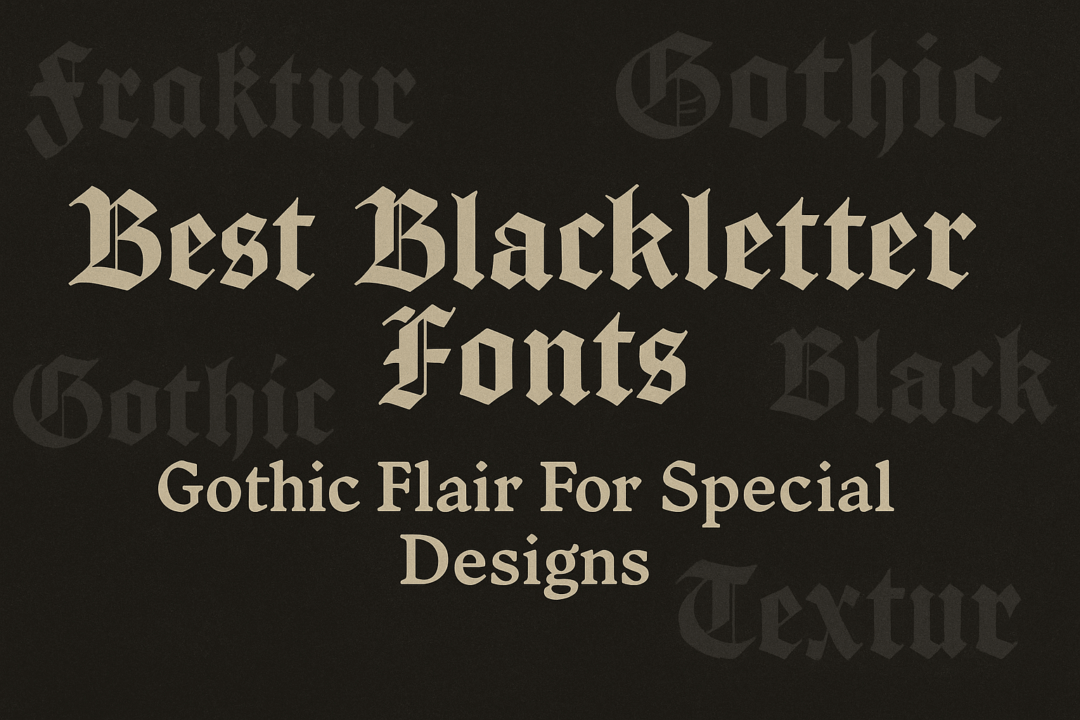
11 Best Blackletter Fonts To Make Your Designs Look Dramatic
Best Blackletter Fonts To Make Your Designs Look Dramatic By Din The influence of modern medieval and rebellion results in the gloomy, cool, dramatic blackletter looking. we have collected blackletter font for your design tools in the following explanations. Discover 25 powerful blackletter fonts perfect for gothic, medieval, and fantasy projects. from victorian elegance to tattoo inspired scripts, find your next bold typeface here.
11 Best Blackletter Fonts To Make Your Designs Look Dramatic Din Studio In this curated collection, you’ll discover the best free gothic and blackletter fonts for designers, including dark display typefaces, vintage inspired styles, and medieval fonts perfect for creative and branding projects. Explore the history, major styles, and best gothic fonts for design. from textura to fraktur, discover premium and free blackletter typefaces for every project. Discover the top gothic and blackletter fonts for 2026 that balance dramatic historical aesthetics with digital legibility, multilingual support, and modern design trends. Discover free blackletter, dramatic fonts that elevate your designs with bold, vintage flair. perfect for creating standout headlines and captivating visual appeal.
Best Blackletter Fonts Hipfonts Discover the top gothic and blackletter fonts for 2026 that balance dramatic historical aesthetics with digital legibility, multilingual support, and modern design trends. Discover free blackletter, dramatic fonts that elevate your designs with bold, vintage flair. perfect for creating standout headlines and captivating visual appeal. We’ve tracked down a set of blackletter fonts that will help you add that same upper class look to your various design projects. plus, we’re featuring a few quick tips on designing with blackletter and gothic fonts to help share some useful advice for your project. Looking for a great blackletter font to elevate your designs? check out our list of 31 best blackletter fonts. Explore the dramatic and ornate world of blackletter fonts in this curated collection. characterized by their bold, angular shapes and intricate details, these fonts evoke a sense of history and tradition, making them perfect for projects that require a touch of medieval flair or gothic aesthetic. Discover the best blackletter fonts, adding gothic drama and vintage charm to standout designs.
Best Blackletter Fonts We’ve tracked down a set of blackletter fonts that will help you add that same upper class look to your various design projects. plus, we’re featuring a few quick tips on designing with blackletter and gothic fonts to help share some useful advice for your project. Looking for a great blackletter font to elevate your designs? check out our list of 31 best blackletter fonts. Explore the dramatic and ornate world of blackletter fonts in this curated collection. characterized by their bold, angular shapes and intricate details, these fonts evoke a sense of history and tradition, making them perfect for projects that require a touch of medieval flair or gothic aesthetic. Discover the best blackletter fonts, adding gothic drama and vintage charm to standout designs.